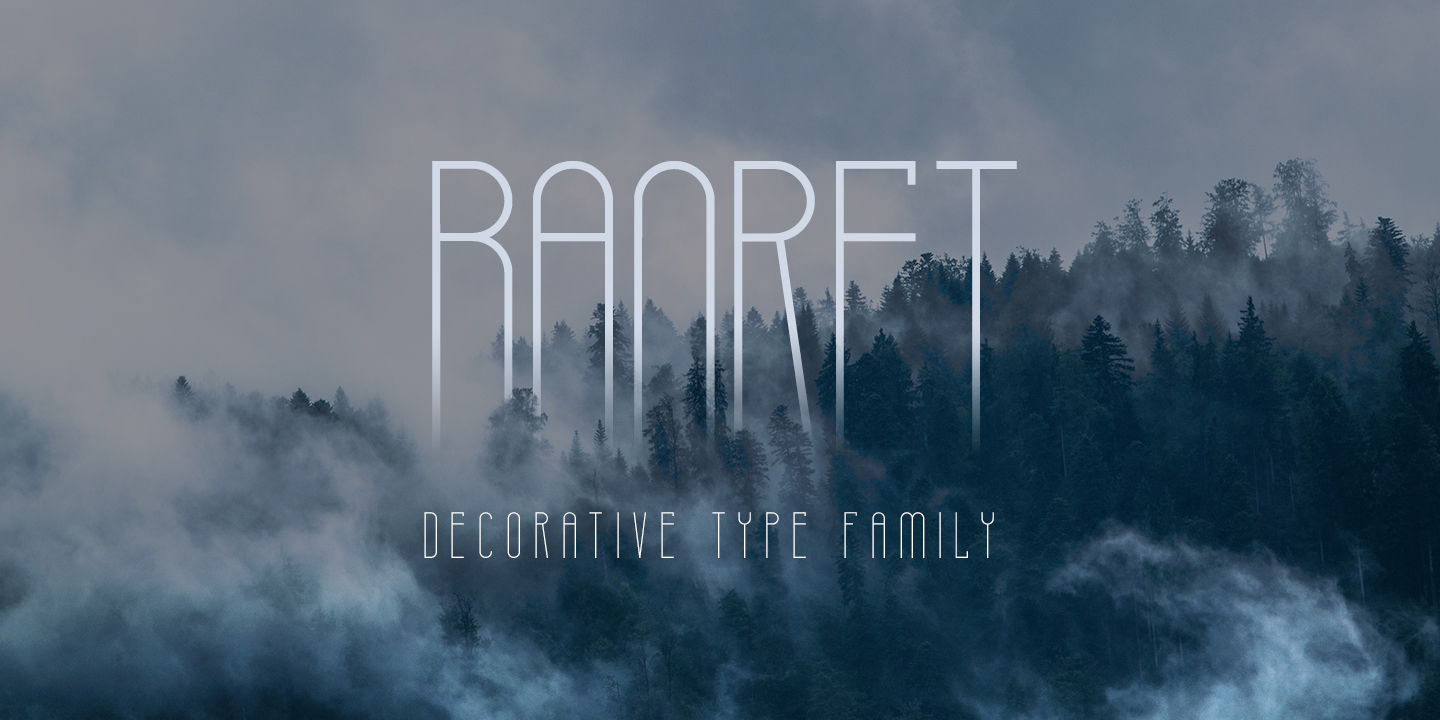
The Banret Font excels in medieval banner designs, heraldic coat of arms projects, castle tournament promotions, royal proclamation materials, knightly order communications, medieval festival signage, historical reenactment graphics, and ceremonial design applications that require noble authority with banner-like grandeur and medieval sophistication.
What makes the Banret Font Free Download so exciting is its exceptional ability to capture the regal authority and ceremonial grandeur of medieval banners through typography that embodies both noble proclamation and heraldic tradition. This typeface features stately letterforms with banner-like characteristics that suggest royal decrees, knightly honors, and the commanding presence of medieval ceremonial displays. Its noble aesthetic speaks to audiences fascinated by medieval pageantry and heraldic tradition, making it perfect for historical organizations, medieval entertainment, and ceremonial venues requiring typography that projects royal authority and medieval authenticity.
The Banret Font family encompasses comprehensive weight variations from Regular to Bold, each maintaining the font's signature banner character and medieval sophistication. The collection includes Medium and Bold styles with enhanced heraldic characteristics that reinforce the font's royal appeal and ceremonial authority. This noble font system ensures medieval entertainment venues and historical organizations have access to typography that conveys genuine nobility while creating immediate connection to concepts of medieval ceremony, heraldic tradition, and royal proclamation.
Perfect for medieval entertainment venues, historical societies, heraldic organizations, and creative professionals working on projects that celebrate medieval pageantry and noble tradition. The font's banner appeal makes it invaluable for medieval marketers, heraldic designers, and historical event organizers developing communications that must honor medieval ceremony while engaging contemporary audiences. Download Banret Font Free Download today and proclaim typographic nobility with this exceptional typeface that waves with banner authority while delivering medieval sophistication and heraldic authenticity for ceremonial communications.